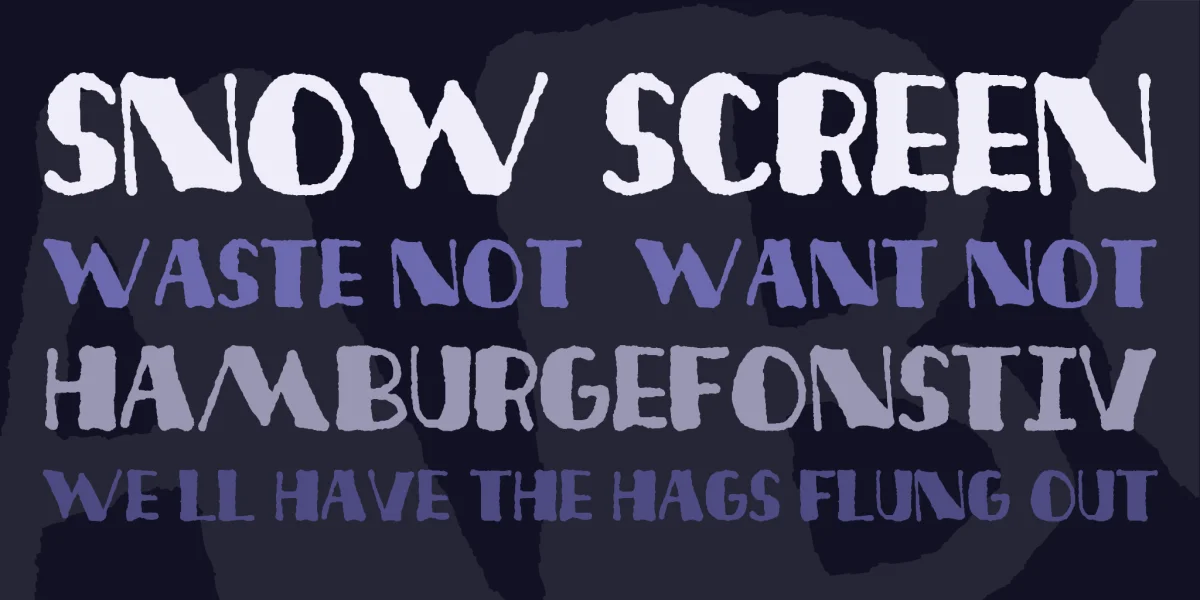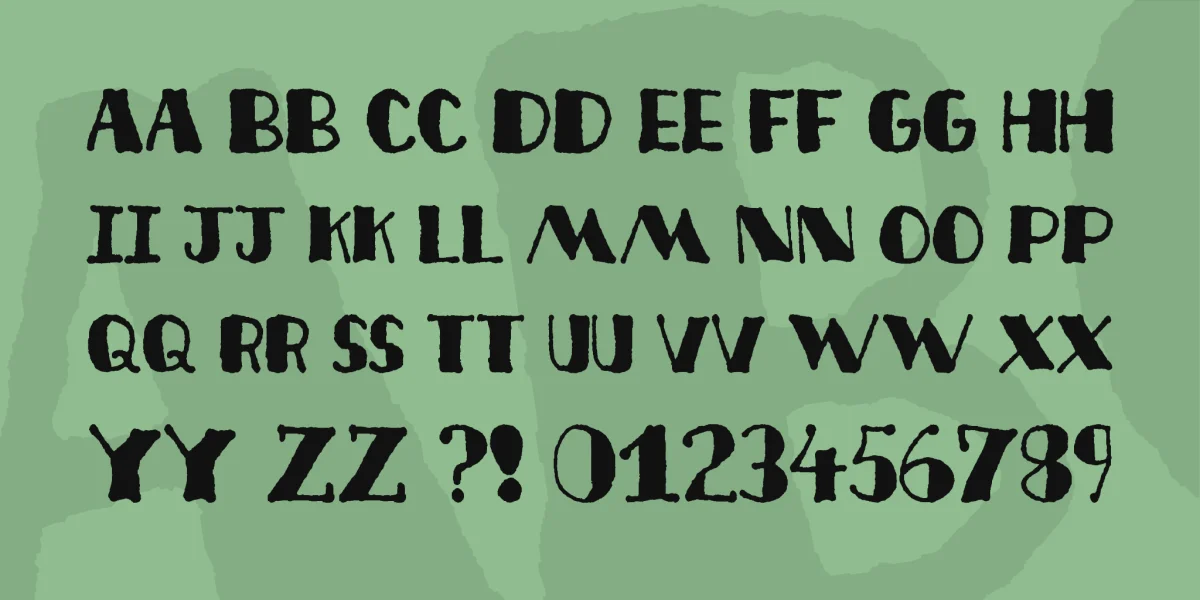
Deco Freehand is a "rapid-fire" font I created on February 19th and 20th of 2001, to settle my mind while working on a book for Guardians of Order (and letting my mind wander to my Fly From Evil project, which may incorporate this font in some way). I drew the sample at the Ruta Maya coffeehouse downtown (one of my favorite writing spots) in about 15 minutes. I created the font the next day in a process that took almost exactly an hour. The font is an all-caps poster font; only letters, numerals, exclamation mark and question mark are included.